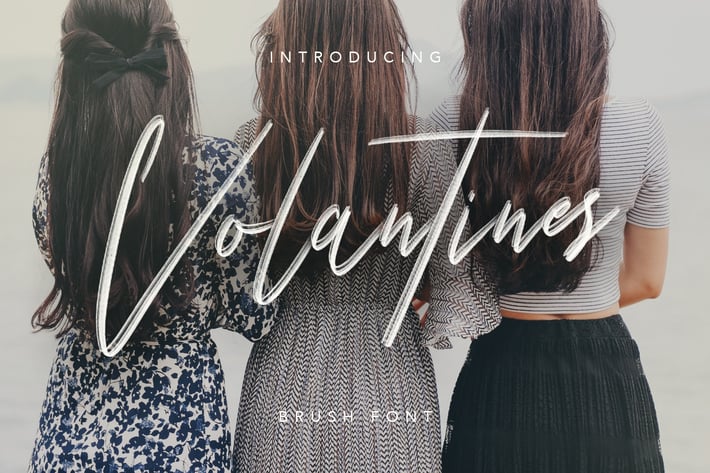
Volantines Brush SVG Font
Give your designs an authentic brush handcrafted feel. "Volantines Brush SVG Font" is perfectly suited to signature, stationery, logo, typography quotes, magazine or book cover, website header, flyer, clothing, branding, packaging design and more.